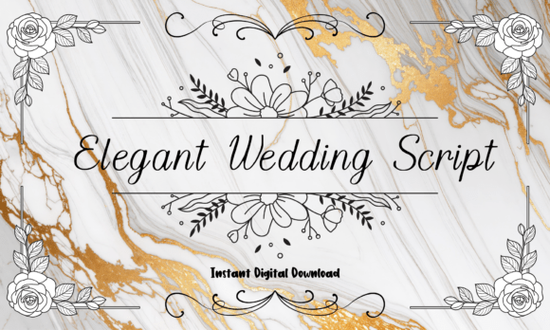
If you're working on wedding invitations, elegant branding, or any design that calls for a soft, romantic touch, the Elegant Wedding Font is worth a closer look. This flowing calligraphy font blends graceful curves with delicate strokes, giving your projects a timeless feel without looking overly ornate. Whether you're a small business owner creating custom stationery or a hobbyist designing personalized gifts, this font adds just the right amount of sophistication.
What makes this font stand out for wedding designs?
Unlike rigid or overly decorative scripts, the Elegant Wedding Font maintains excellent readability while still feeling luxurious. Its natural hand-lettered rhythm mimics real calligraphy, which helps avoid that “too digital” look. You’ll find it especially useful for:
- Wedding invitations and save-the-date cards
- Menu cards, place cards, and other reception stationery
- Custom signage for venues or photo backdrops
- Social media announcements or couple quotes
- Branding for wedding planners, florists, or boutique services
Because it’s designed with subtle variations in stroke weight and gentle swashes, it pairs beautifully with minimalist layouts letting the typography itself carry the elegance.
How does it compare to other script fonts?
For example, if you’re designing a logo for a bridal boutique, you might consider fonts with a bit of playful movement but if you want something that conveys tradition and grace, this wedding script delivers without distraction. Similarly, while Beetle Duo excels in high-contrast drama, the Elegant Wedding Font leans into subtlety, making it ideal for layered designs or when paired with serif or sans-serif companions.
Who should use this font?
This font isn’t just for brides-to-be. It’s a practical choice for:
- Print-on-demand sellers creating mugs, tote bags, or wall art with romantic quotes
- Small creative businesses building cohesive visual identities (think bakeries, floral studios, or event planners)
- Crafters making vinyl decals, embroidered patches, or laser-cut wood signs
- Graphic designers working on editorial layouts, social templates, or digital greeting cards
Tips for using it effectively
To get the most out of the Elegant Wedding Font, keep these ideas in mind:
- Avoid overuse. One headline or focal phrase per design is usually enough pair it with a clean sans-serif for body text.
- Use generous spacing. Tight kerning can make delicate strokes collide; give letters room to breathe.
- Test print sizes. Very fine details may disappear at small scales, so preview physical outputs before finalizing.
- Layer with texture. A subtle paper grain or watercolor background enhances its organic feel without competing.